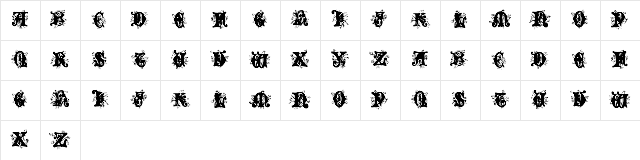
Angel Normal Normal
Design Context for Angel Normal
Angel Normal is a composed and adaptable typeface that performs quietly and consistently across a wide range of design contexts.